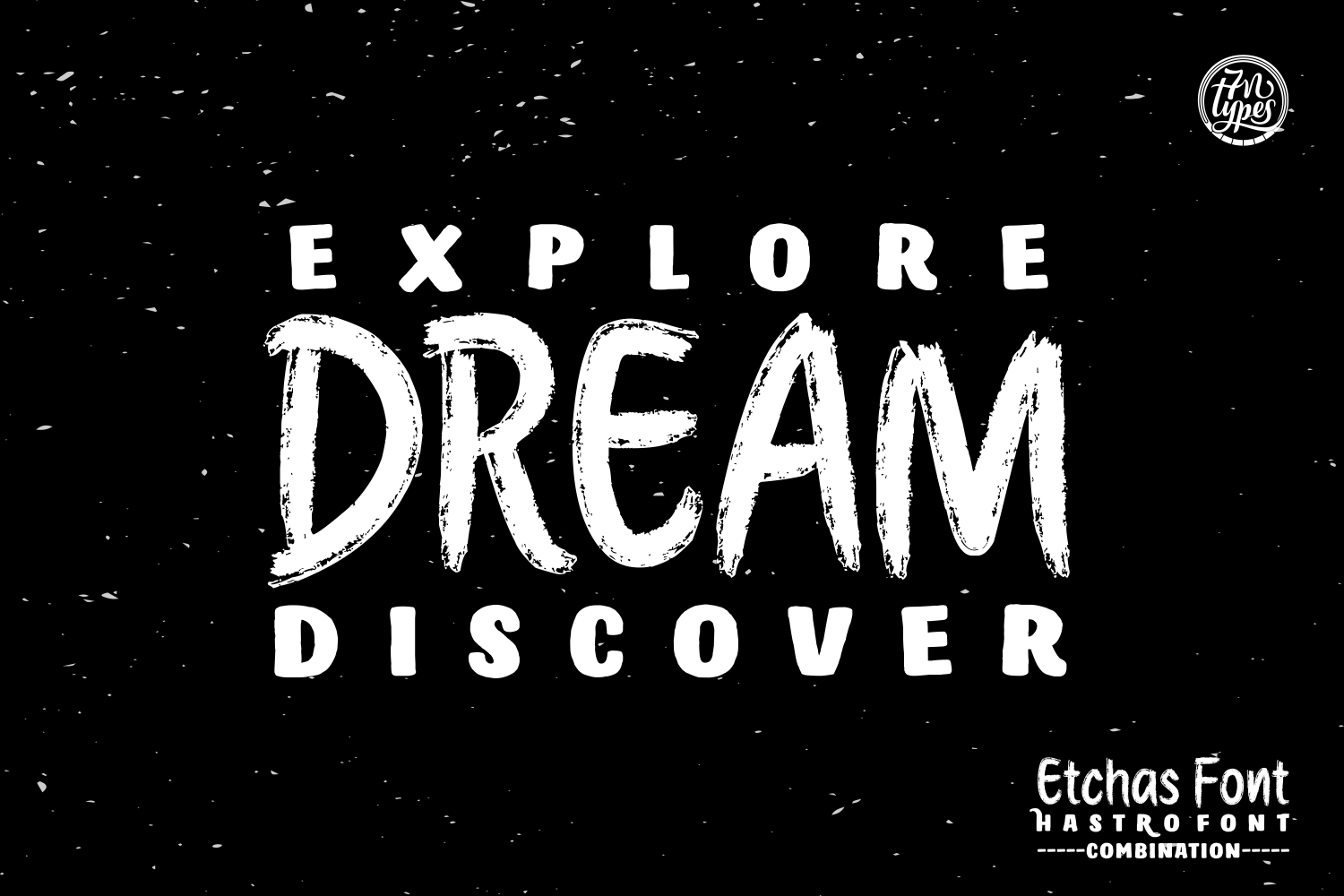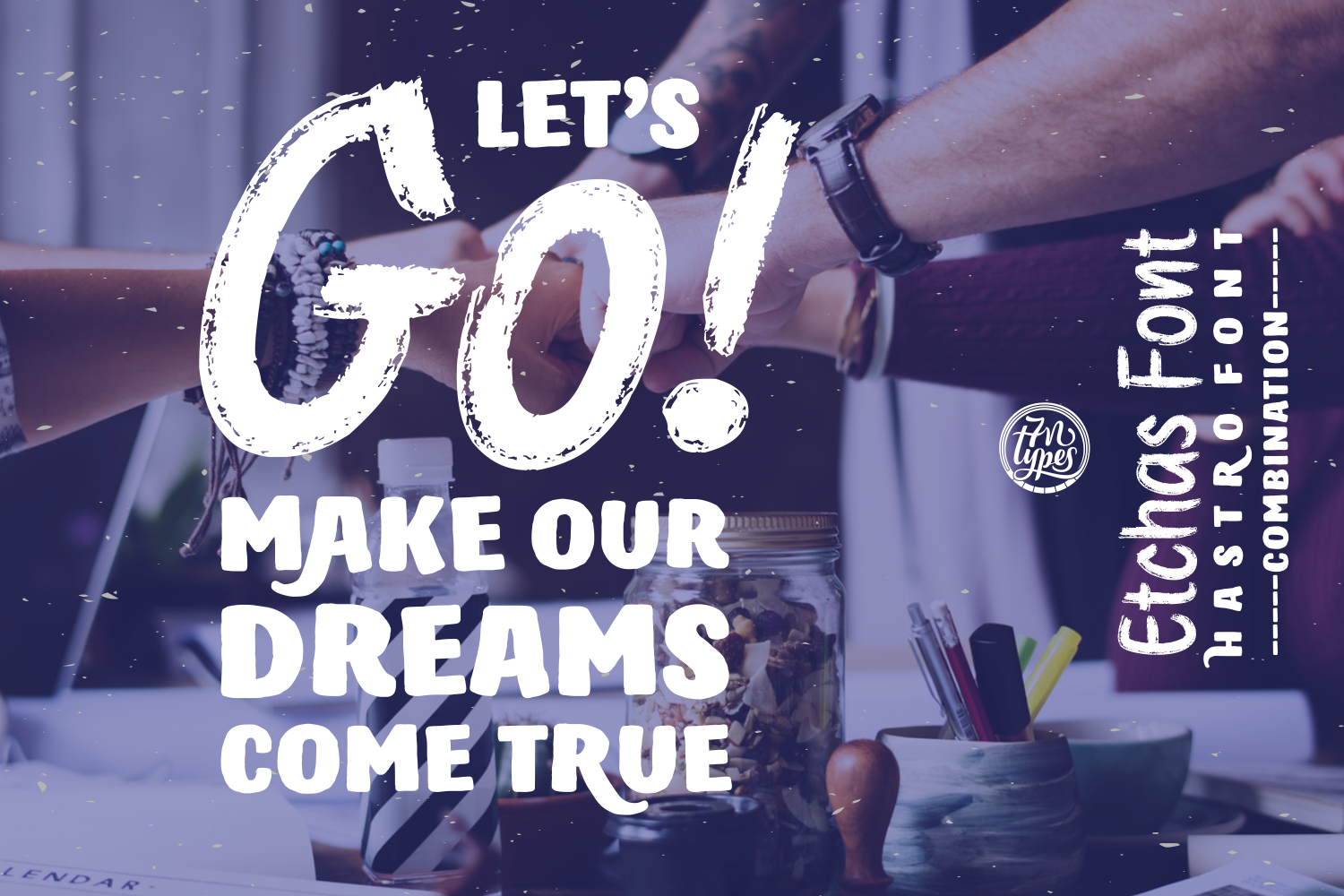
Etchas Font
About Etchas Font
Etchas is a stamped brush handwritten font.
It’s heavily eroded letters allows for adding a personal touch to your projects. Etchas comes in 2 different versions, Regular & Italic.